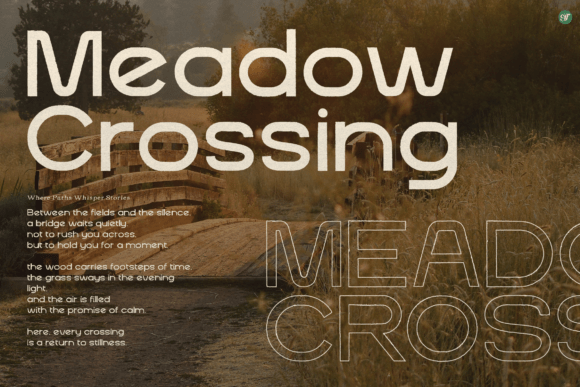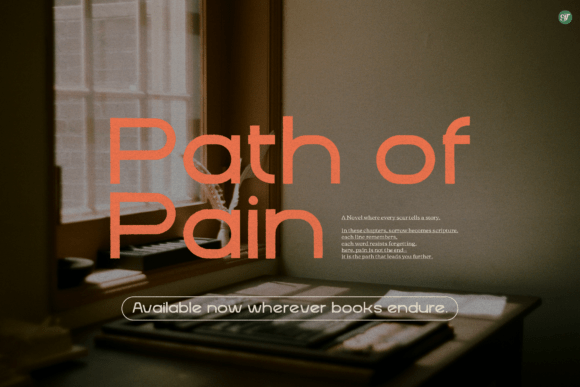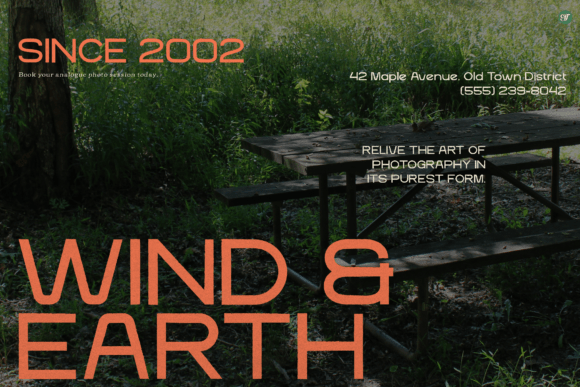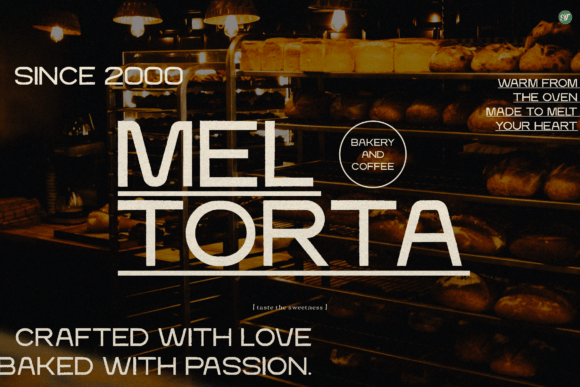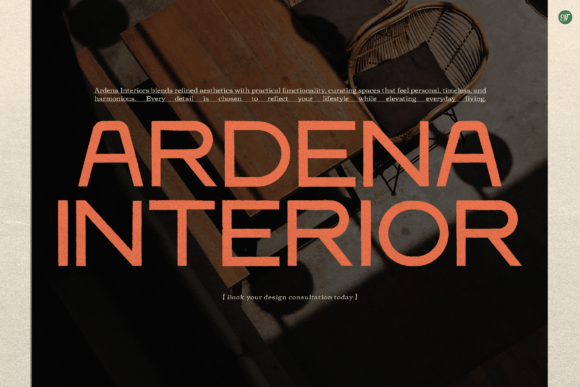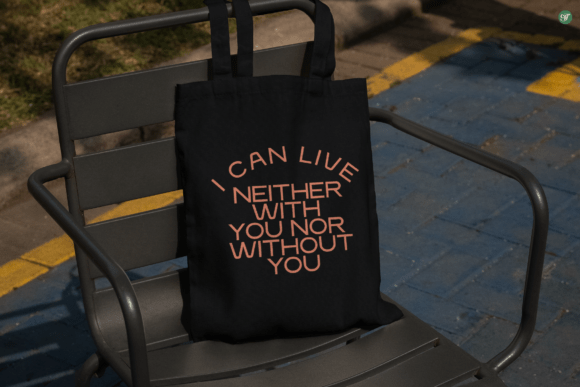
Timeless Design Meets Modern Charm
As designers, we’ve all been there – staring at a blank canvas, searching for the perfect font to bring our ideas to life. And then, it happens. A spark of inspiration strikes, and you’re off on a creative journey, fueled by the perfect combination of style and functionality. For many, that perfect font is Arche Sans Font Font – a vintage sans serif reimagined with modern charm and a sleek, structured design.
Arche Sans Font Font is more than just a font; it’s a bridge between past and future, blending retro soul with clean, geometric lines. Its blocky shapes paired with subtle vintage textures give it an approachable personality, while its refined structure makes it versatile enough for professional and creative projects alike. Whether you’re building an elegant tech brand or launching a lifestyle product, Arche Sans Font Font ensures your work feels memorable and fresh.
Key Features of Arche Sans Font
- Font Family: Arche Sans Font is a sans-serif font family designed to be versatile and modern.
- Unique Characteristics: Arche Sans Font features a unique blend of geometric and organic shapes, resulting in a distinctive and modern aesthetic.
Arche Sans Font Review
First off, let’s talk about what works well with Arche Sans Font ✨. I really appreciate its clean and minimalist design, which makes it perfect for modern and sleek interfaces. The font’s rounded edges and subtle details give it a friendly and approachable feel, which is ideal for digital products and websites. Additionally, the font’s versatility shines through in its multiple weights, ranging from light to bold, allowing designers to experiment with various typography styles.
Here are some specific strengths of the font:
- Modern and clean design
- Round edges and subtle details
- Multiple weights for versatility
- Approachable and friendly feel
However, there are some limitations to consider ⚠️. The font may not be the best choice for projects that require a more dramatic or expressive typography style. Additionally, the font’s rounded edges may not be suitable for certain applications, such as logos or icons, where a more geometric or angular design is preferred.
Overall, I think Arche Sans Font is a solid choice for designers who value a clean and modern aesthetic. While it may have some limitations, its versatility and friendly feel make it a great addition to any design project.
The Arche Sans Font is ideal for:
- Clean and modern branding.
- Web design and development.
- Graphic design and visual identity.
- Printing and publishing.